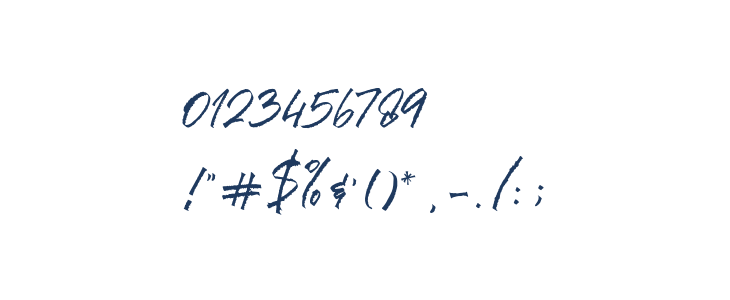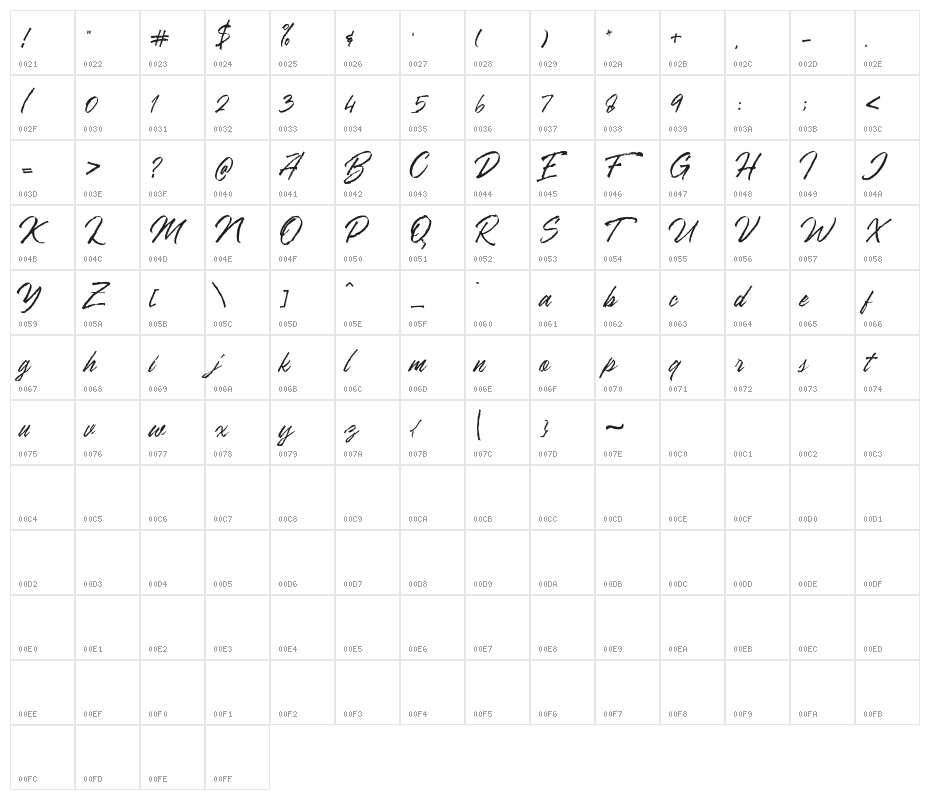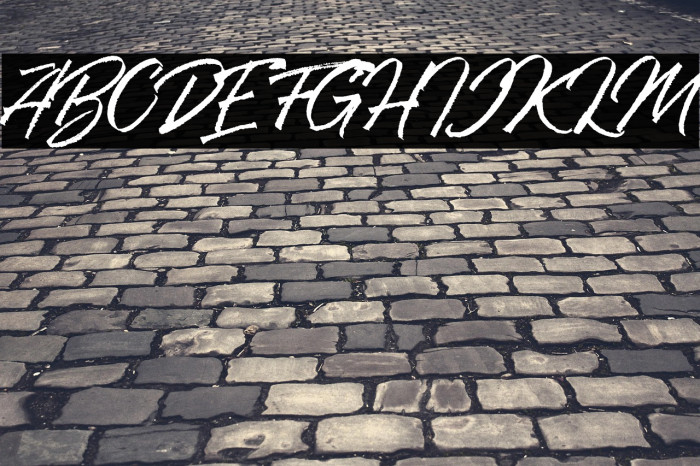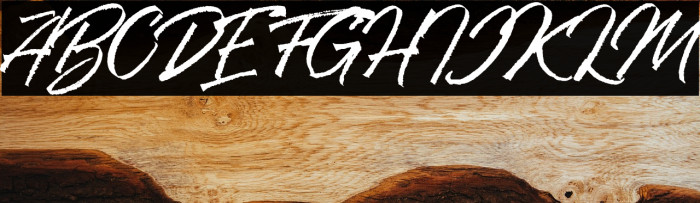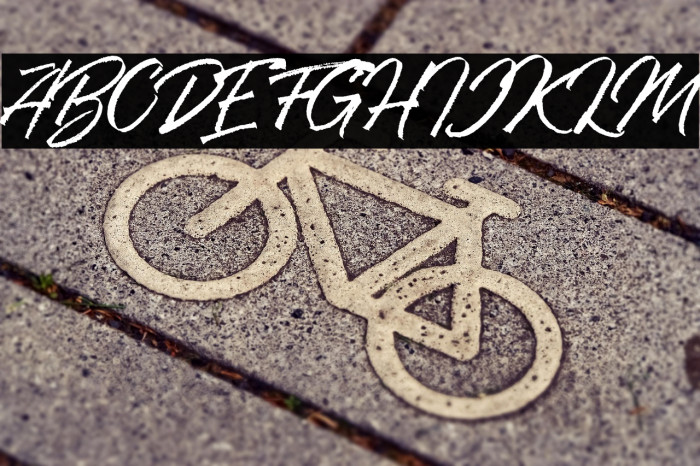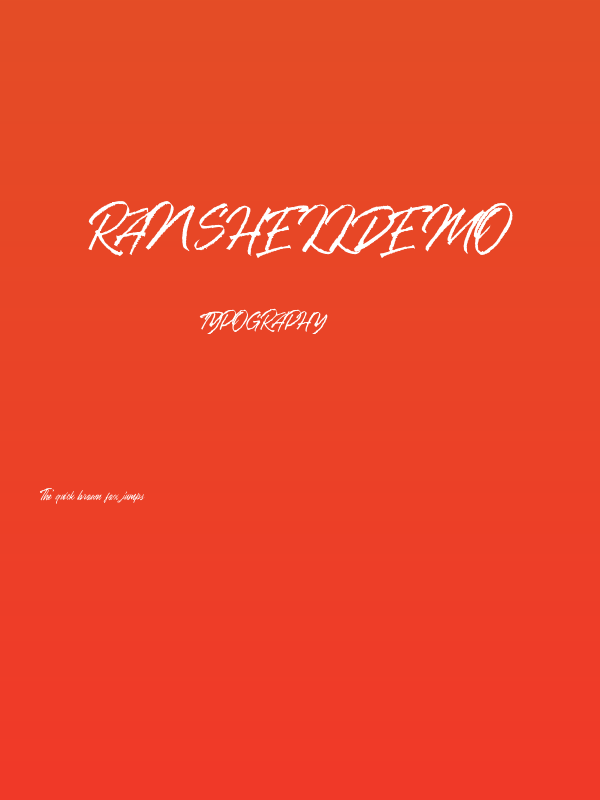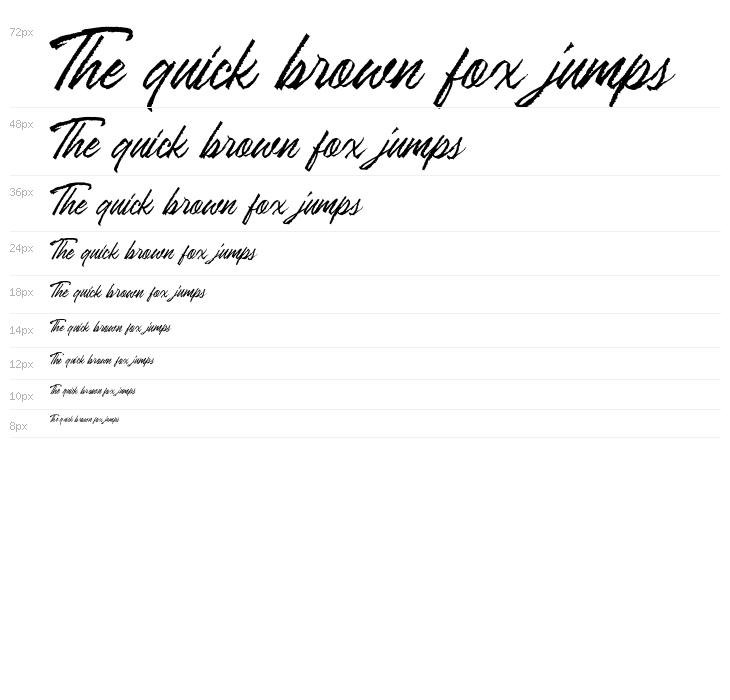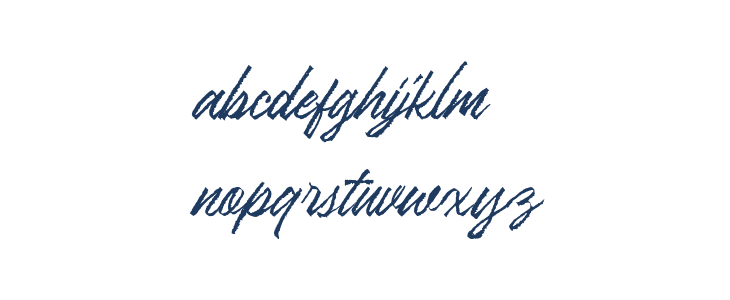
RanshellDEMO Font
RanshellDEMO Description
This font exudes a dynamic and energetic style, characterized by its fluid, cursive script. The letters are connected with sweeping strokes, giving it a handwritten appearance. The uppercase letters are bold and prominent, while the lowercase letters maintain a consistent flow. Numbers and special characters are designed to match the overall aesthetic, ensuring a cohesive look. The font's style is reminiscent of personal handwriting, making it suitable for projects that require a personal touch. Its bold strokes and slight slant add to its expressive nature, making it stand out in any design.
| Proposed Projects | Ideal for invitations, greeting cards, logos, and branding materials that require a personal, handwritten touch. |